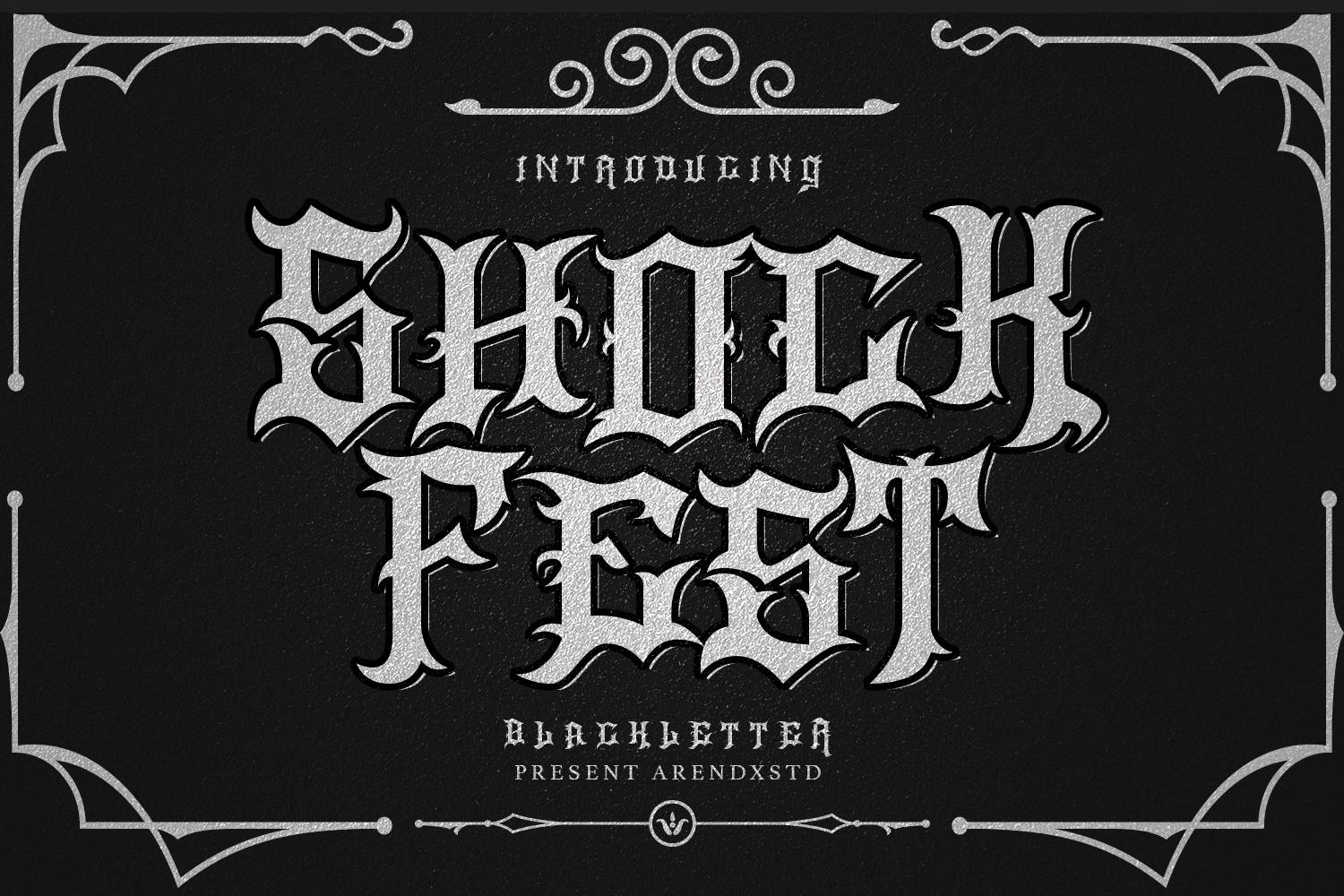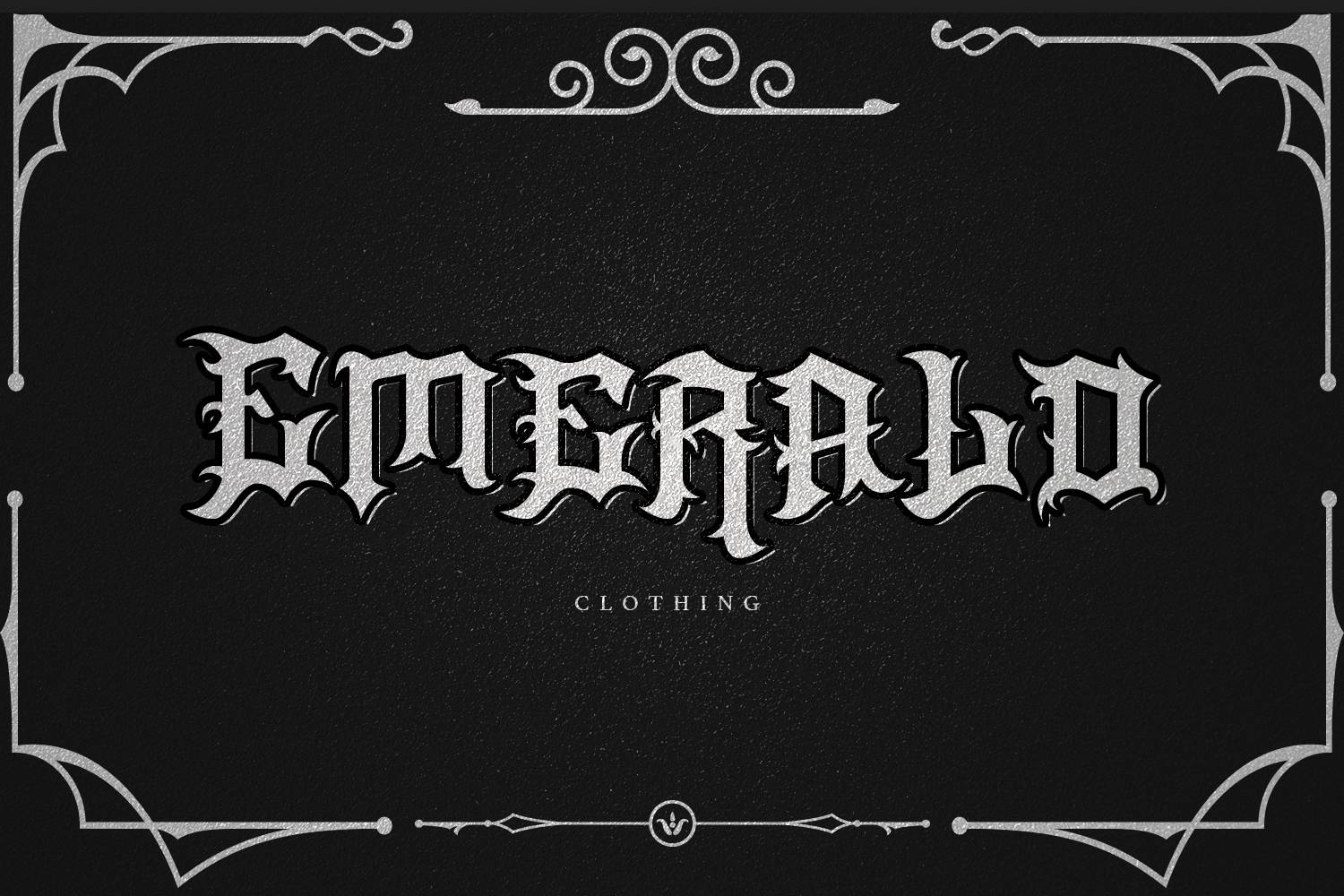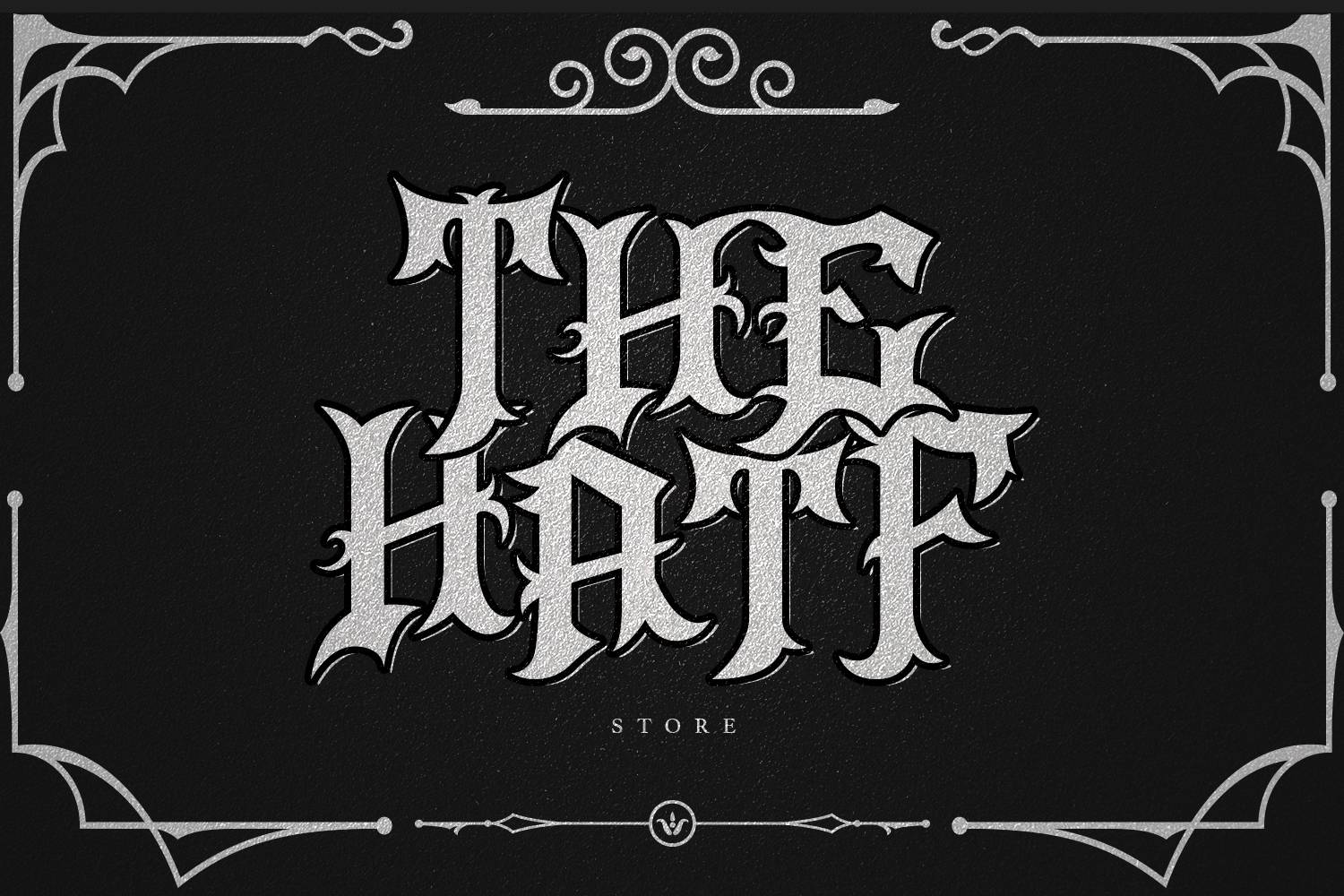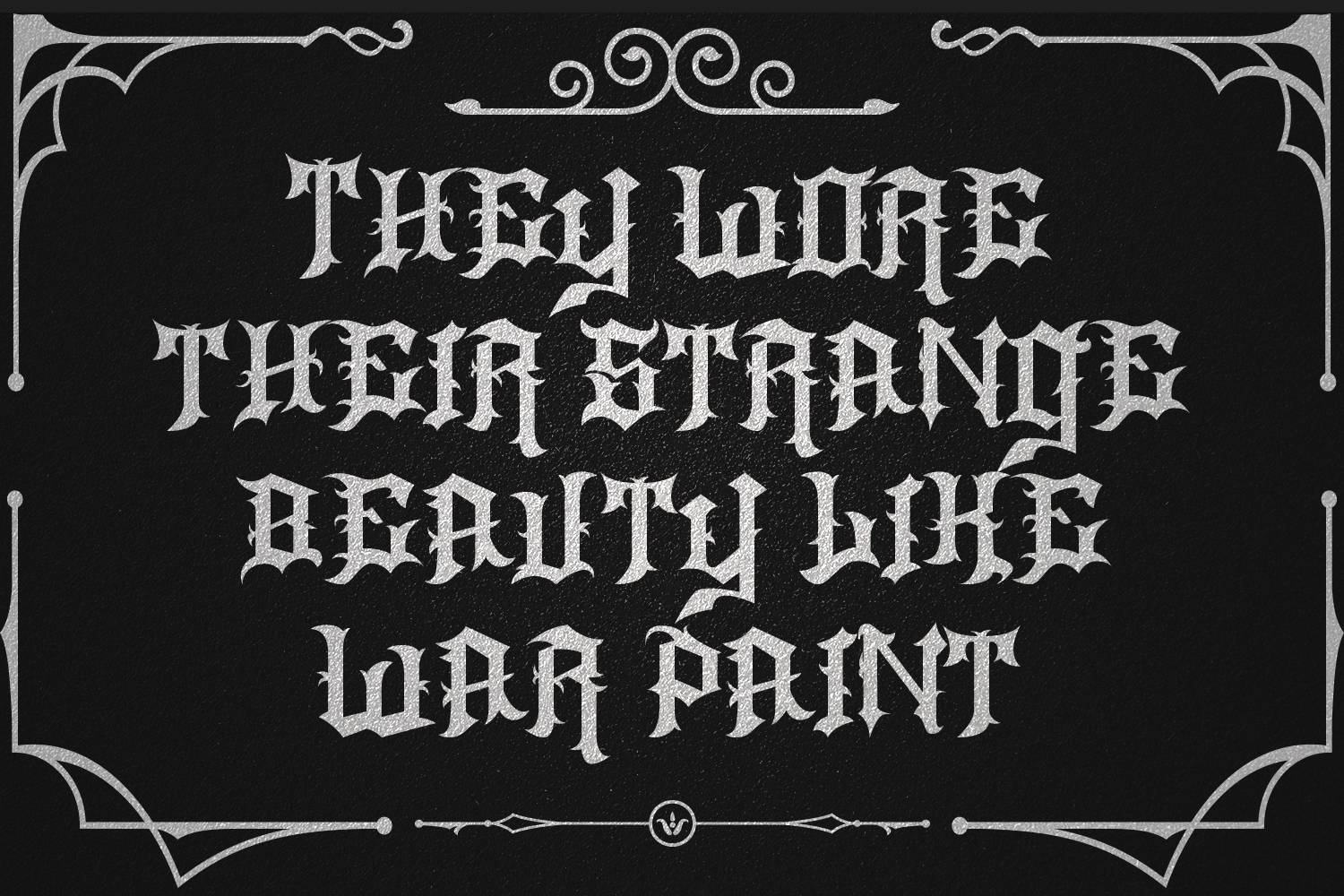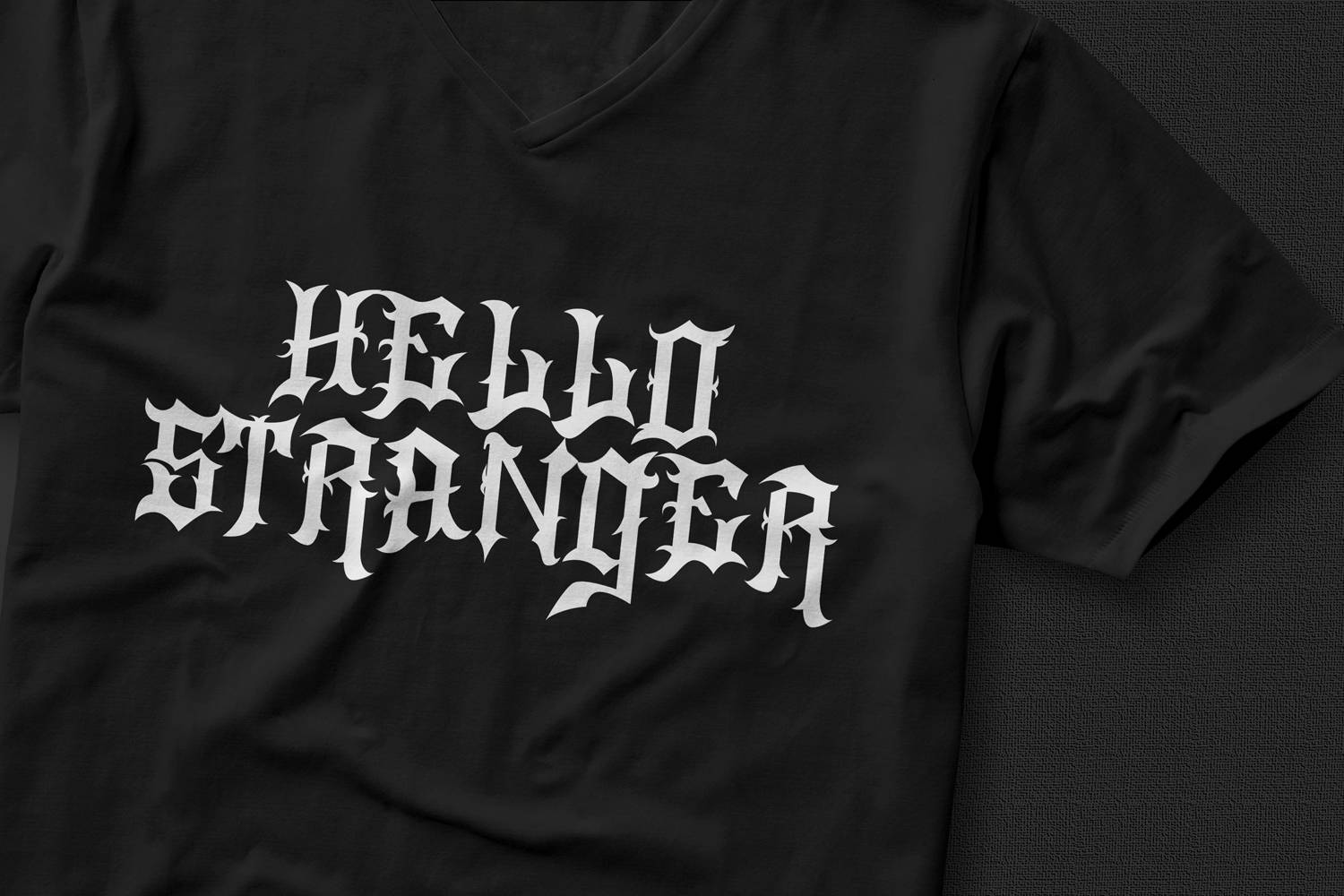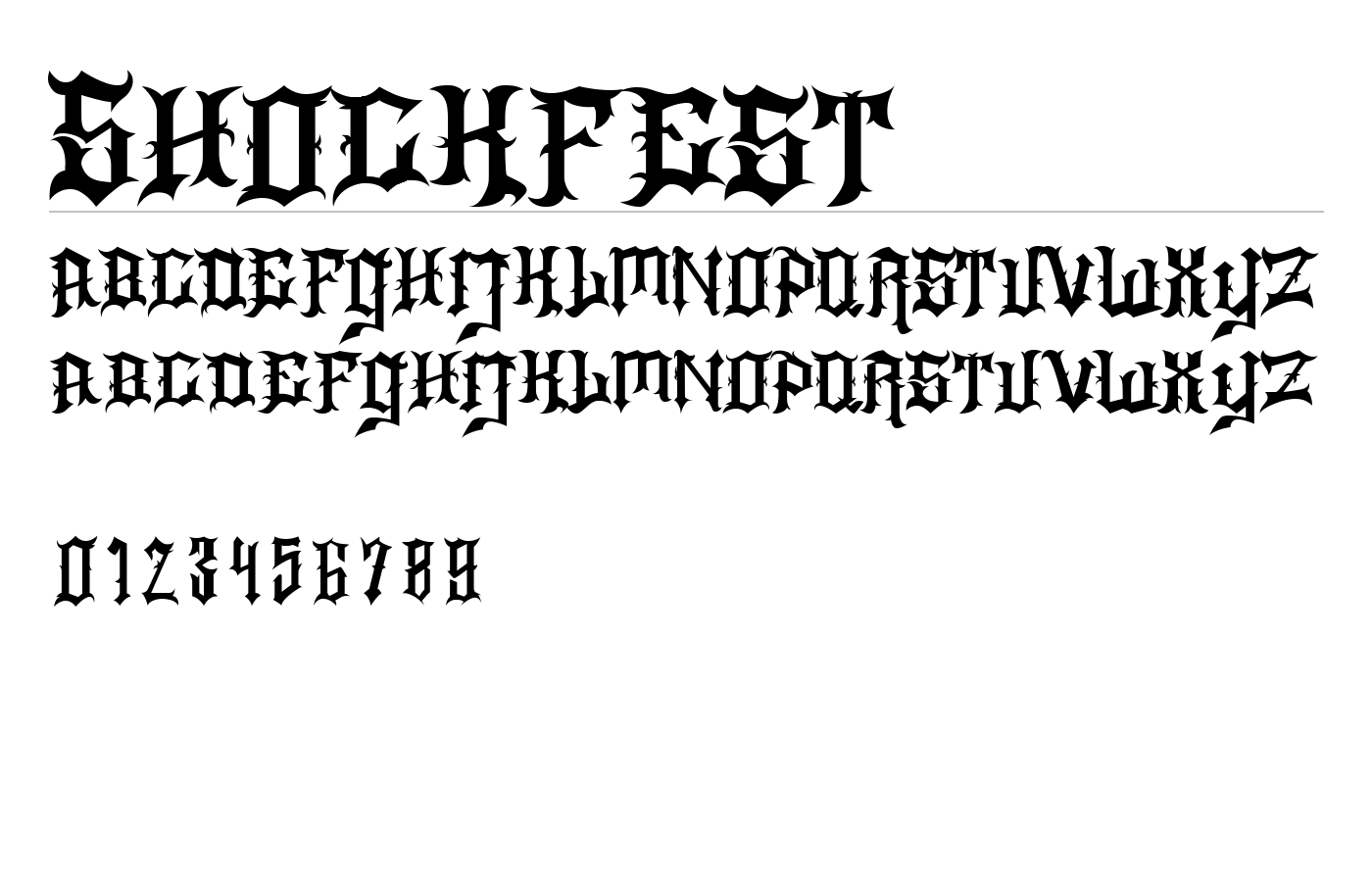
Shock Fest is a bold, blackletter-style font that features sharp, angular strokes and dramatic contrasts, evoking a gothic and vintage feel. Its tightly spaced, ornate letterforms make it ideal for striking headlines, logos, or event posters that demand attention with a dark, edgy personality. This font works best in designs that want to convey intensity and a rebellious spirit, especially for music festivals or alternative brand identities.
Shock Fest Font
About Shock Fest Font
| Font family | Shock Fest Font |
| Release date | 2020-07-31 |
| Designer | arendxstudio |